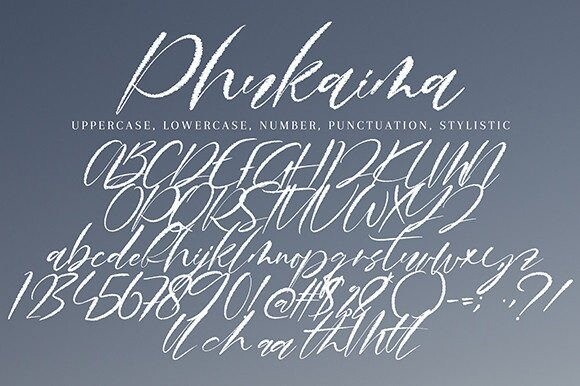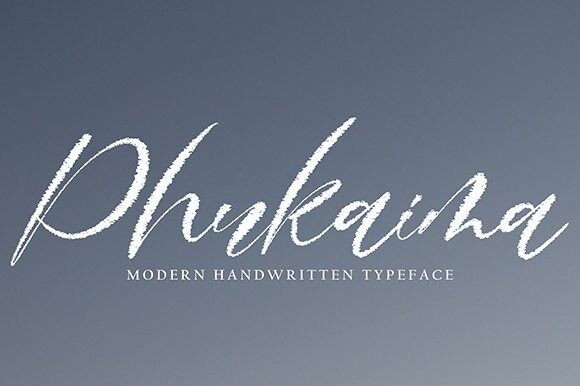
Phukaima Font
Designer: Pineungtype & Missinklab
Phukaima Font is an exquisite handwritten font, masterfully designed to become a true favorite. It maintains its classy calligraphic influences while feeling contemporary and fresh. Fall in love with it and bring your projects to the highest levels!